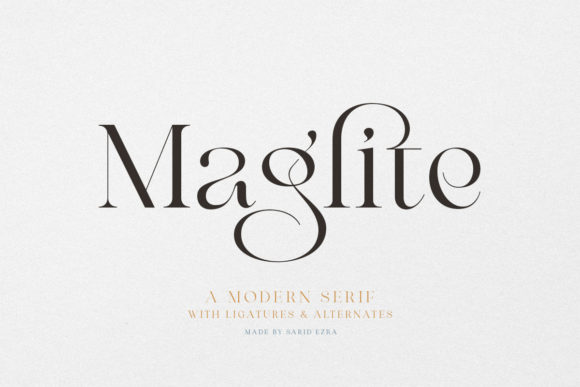
Introducing Maglite Font, the perfect choice for adding elegance and modernity to your projects. Created by the talented designer saridezra, this versatile serif font is sure to captivate and mesmerize your audience.
Maglite Font boasts a wide range of features that will take your presentations, projects, and logos to new heights. Its sleek and sophisticated design exudes class and professionalism, making it ideal for any occasion. Whether you're designing a wedding invitation or establishing your brand's identity, Maglite is the ultimate typeface that will elevate your visuals like never before.
With its exquisite curves and impeccable attention to detail, Maglite Font is guaranteed to leave a lasting impression. Every stroke is carefully crafted to exude elegance and refinement, ensuring that your content stands out from the crowd. Its captivating appeal will draw in your audience, leaving them wanting more.
Make your wedding invitation truly unforgettable with Maglite Font. Its graceful serifs and graceful strokes add a touch of romance and sophistication, setting the perfect tone for your special day. Your guests will be captivated by the sheer beauty of the typography, creating a lasting impression that will be cherished for years to come.
Looking to establish a strong and memorable brand identity? Look no further than Maglite Font. Its modern and sleek design will give your logo a timeless appeal, instantly capturing the attention of potential customers. Stand out from your competitors and make a lasting impression with this captivating typeface.
Maglite Font is not just a font; it's an experience. Its dynamic and expressive nature allows you to unleash your creativity and bring your ideas to life. Whether you're designing a brochure, website, or any other creative project, Maglite Font will be your trusted companion, helping you create stunning visuals that leave a lasting impact.